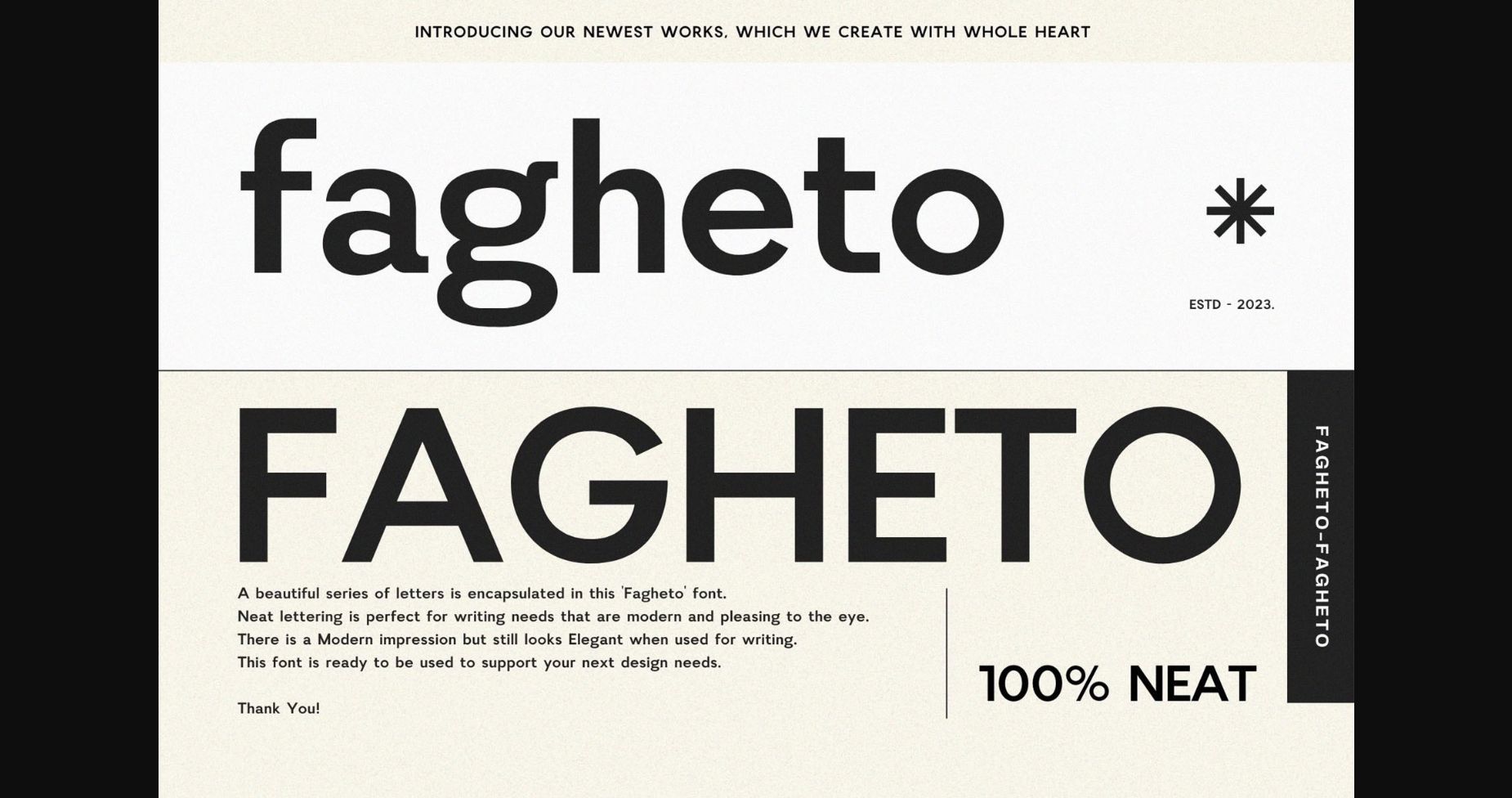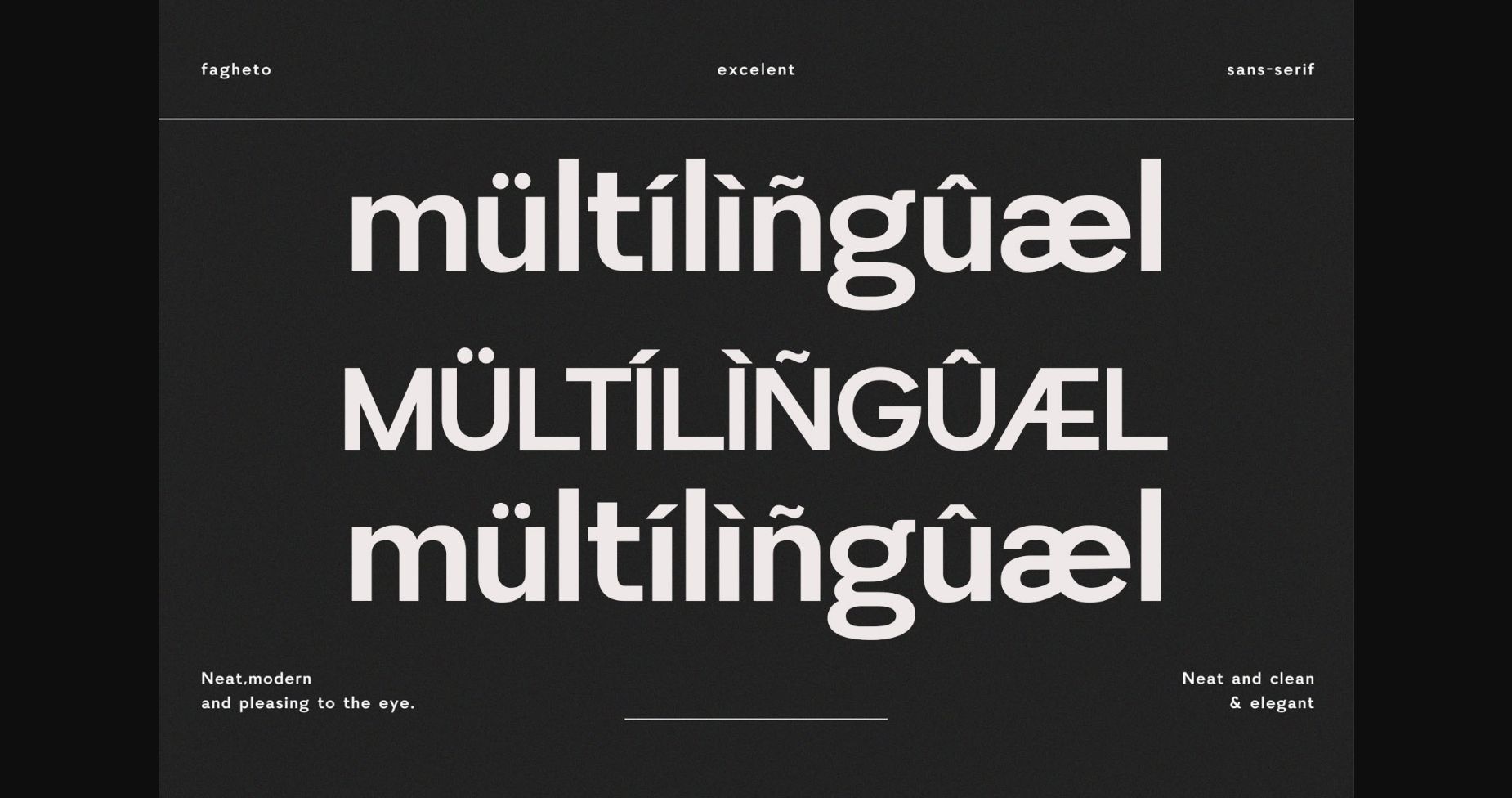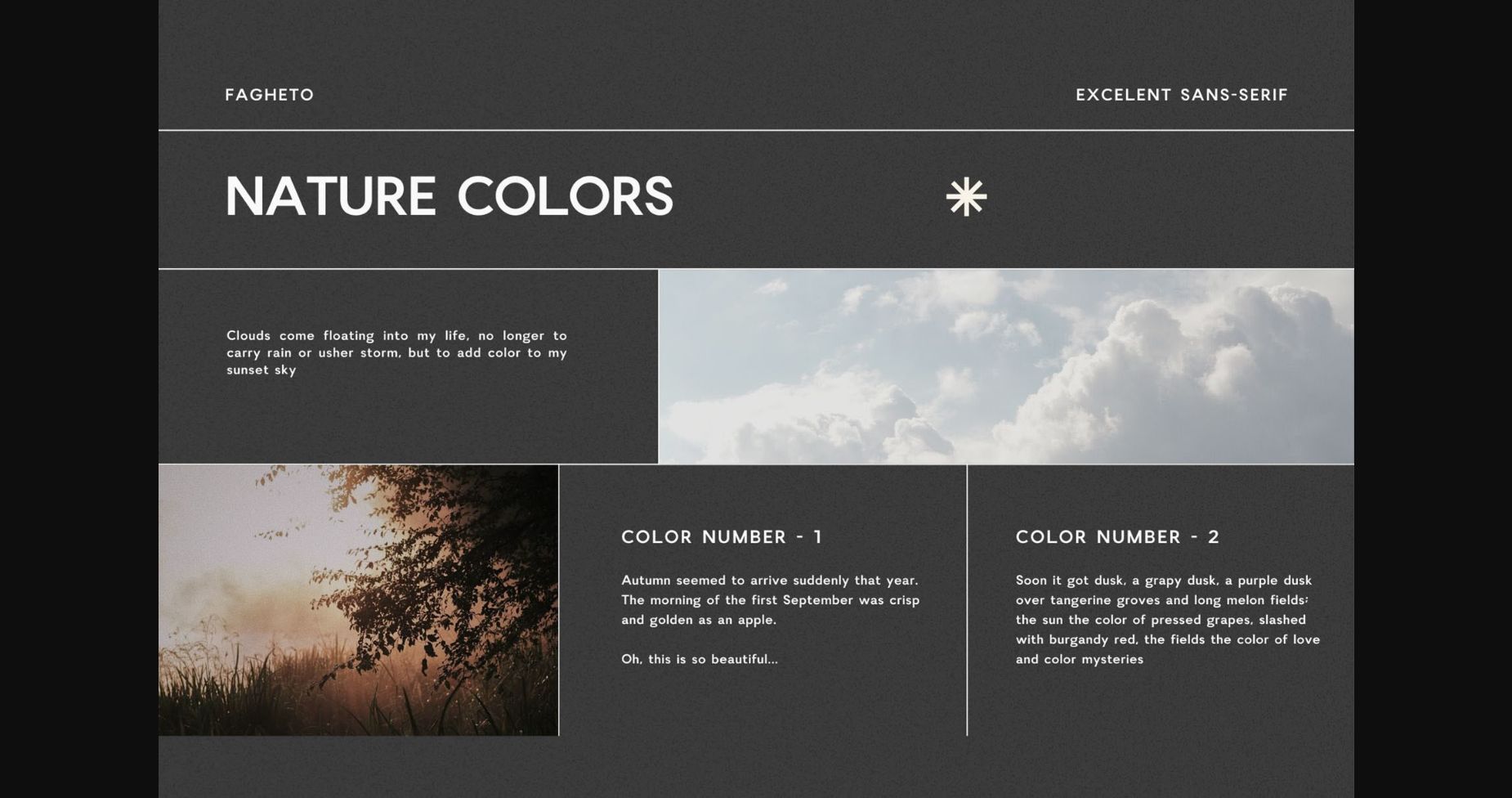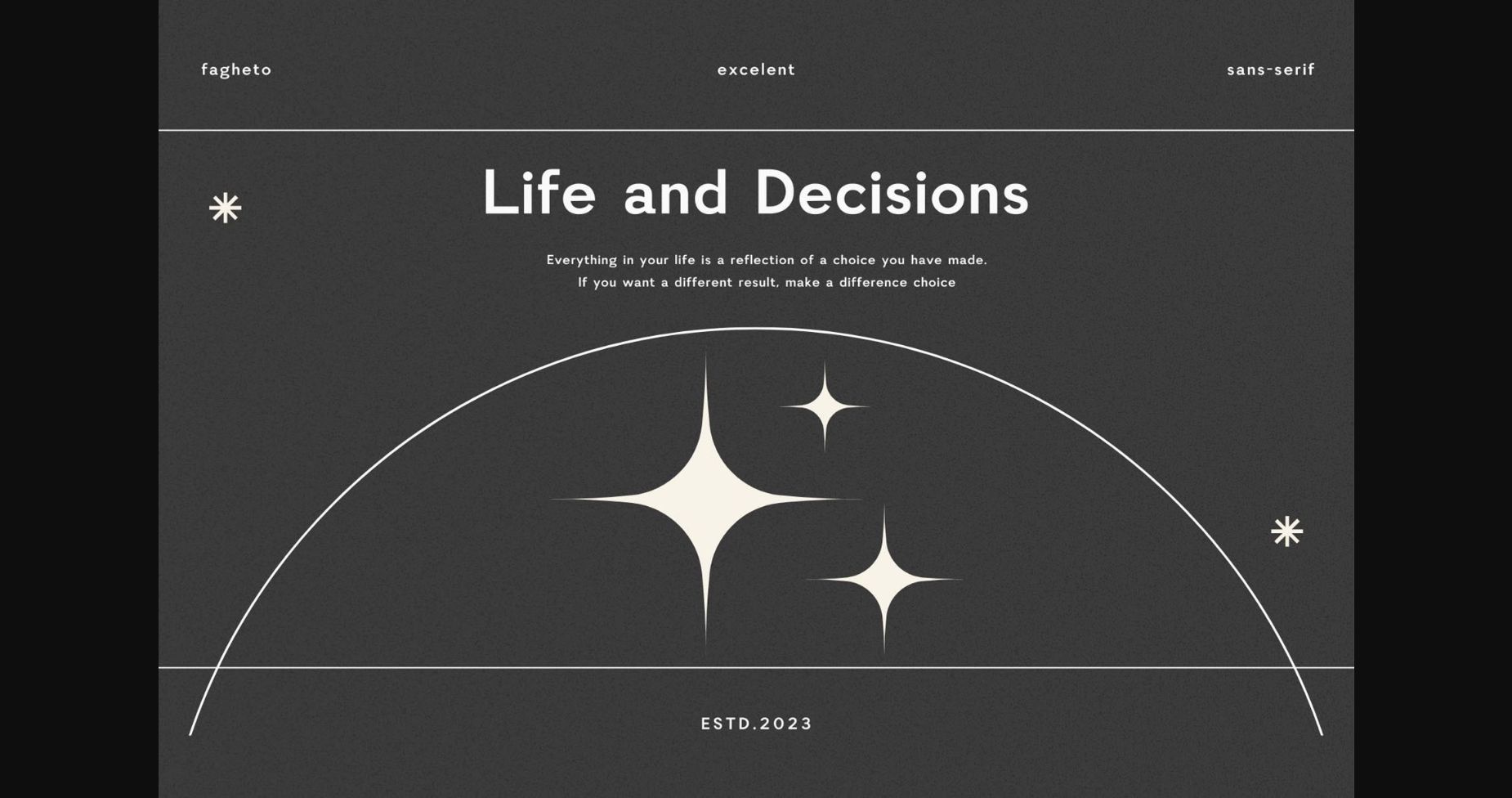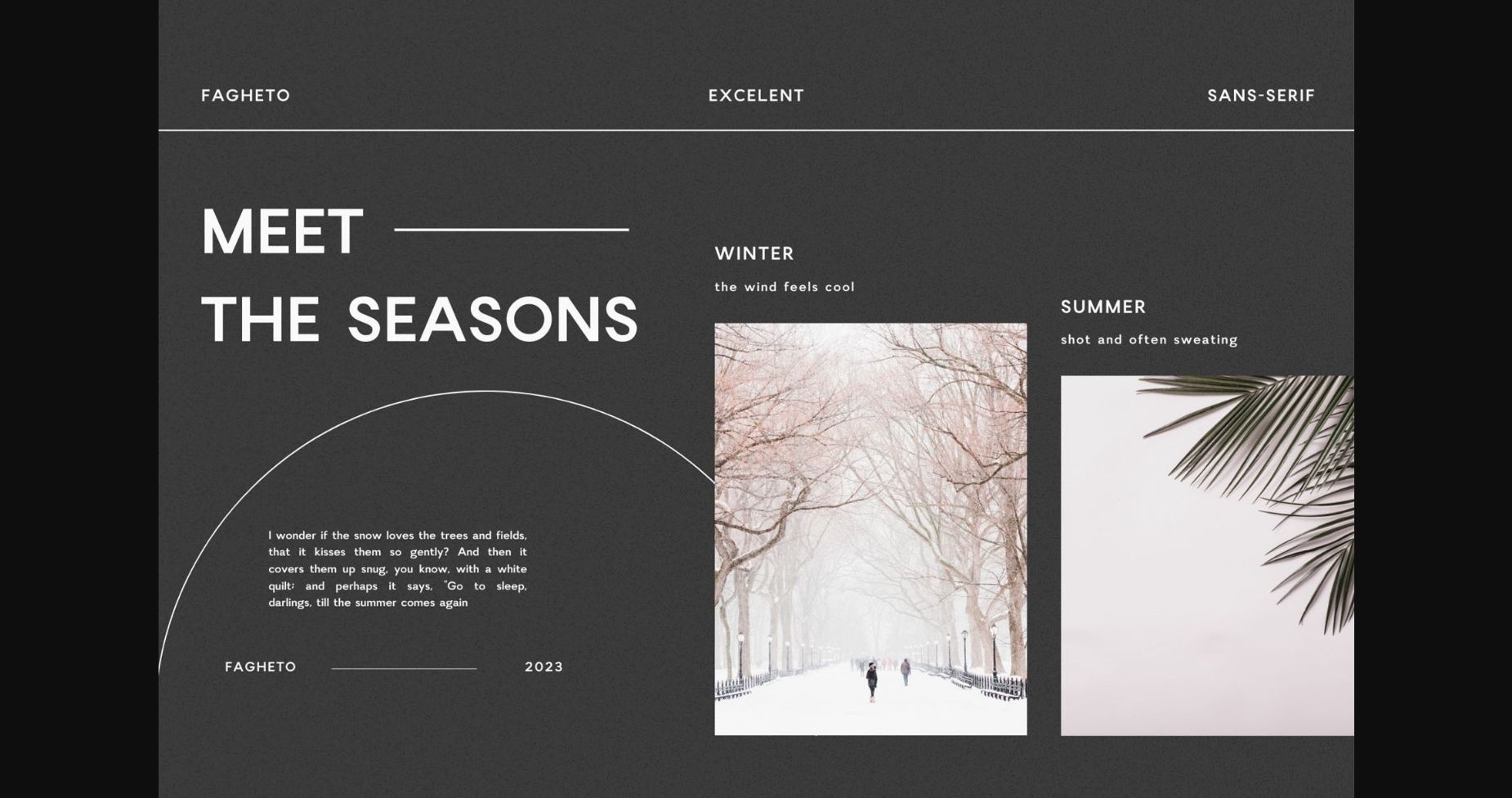
About Fagheto Font
Fagheto is an elegant and bold serif font. Fall in love with its incredibly versatile style and use it to create gorgeous wedding invitations, beautiful stationary art, eye-catching social media posts, and much more!